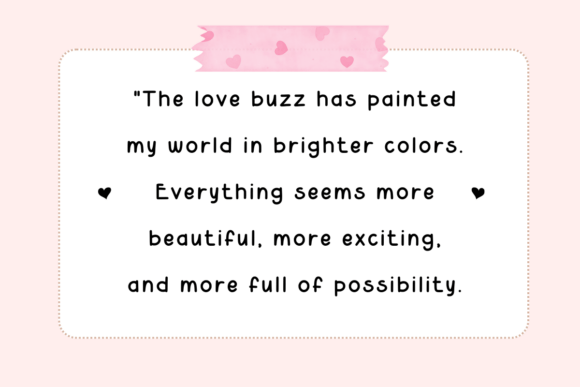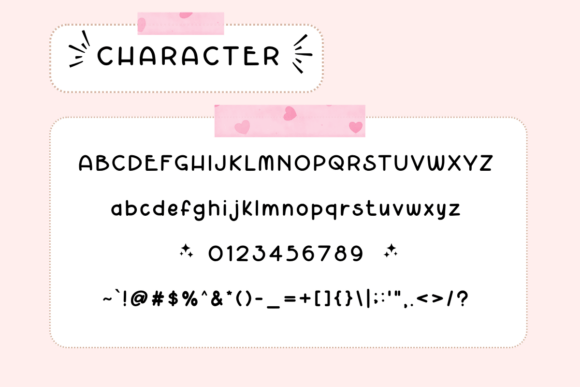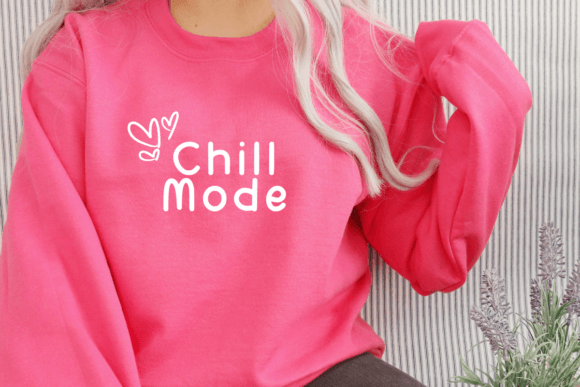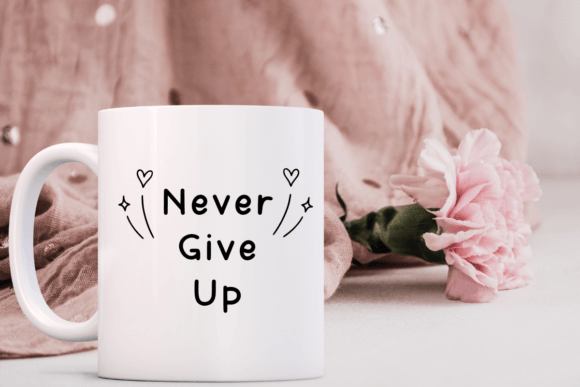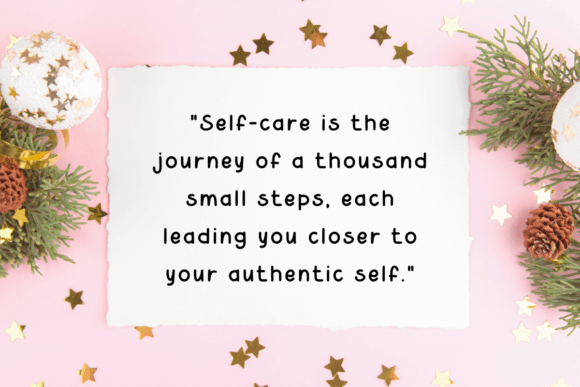
Introduction to Love Buzz Font
Love Buzz is a clean and modern sans serif font with a soft, elegant feel.
It features smooth lines and balanced shapes, making it perfect for romantic designs, invitations, logos, or any project that needs a stylish and friendly look .
Key Features of Love Buzz Font
Why Choose Love Buzz Font?